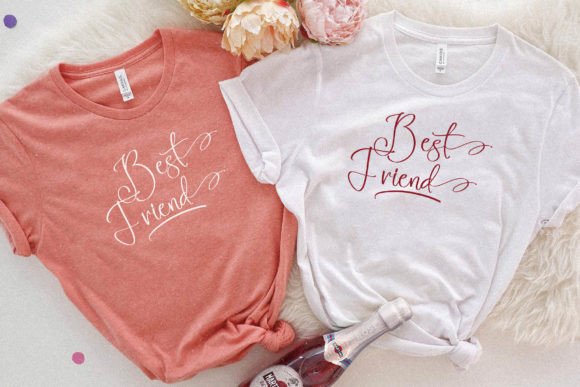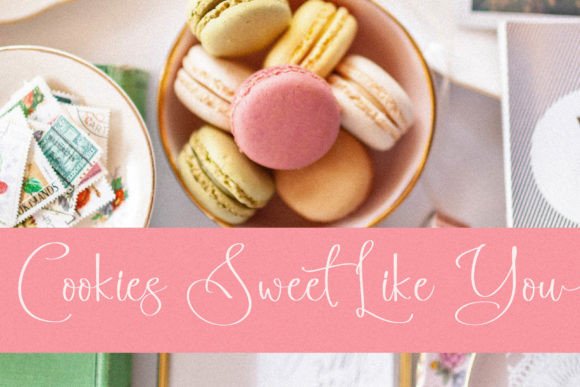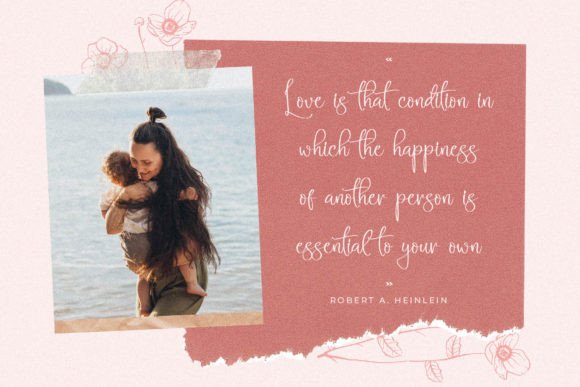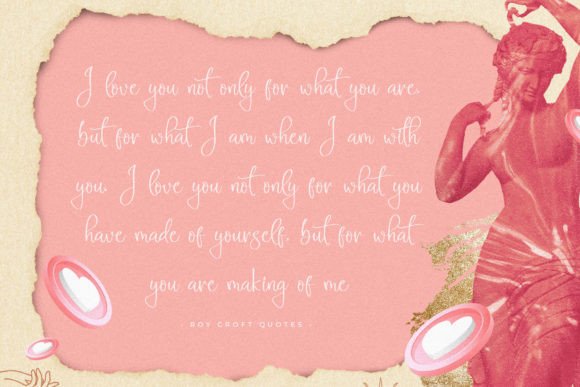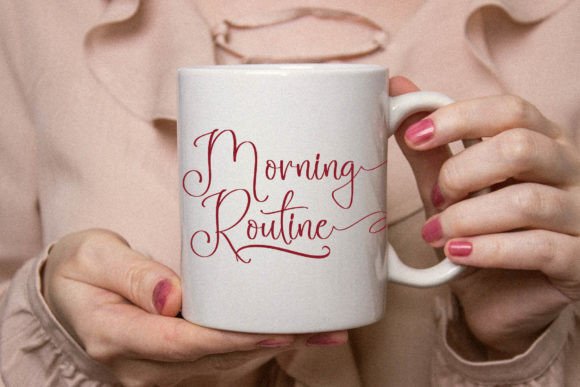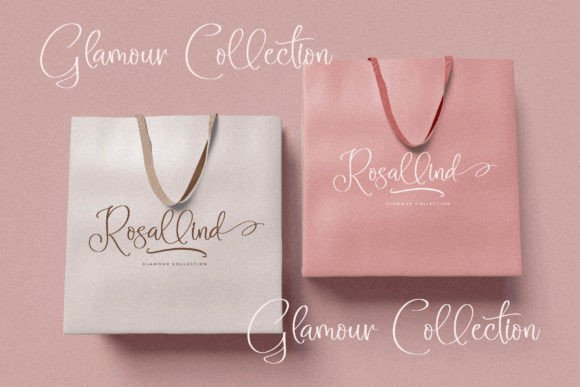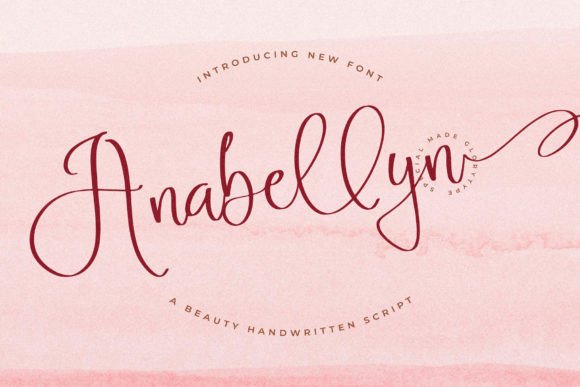
The Enchanting Anabellyn Font: A Designer’s Dream Come True
I still remember the day I stumbled upon the Anabellyn font while working on a romantic wedding invitation project. My client wanted a font that exuded elegance, whimsy, and a touch of playfulness. I had scoured the internet, tried out countless fonts, but nothing seemed quite right. That was until I laid eyes on Anabellyn – a beautiful, handwritten script font that instantly captured the essence of the project. In this article, I’ll share my experience with Anabellyn, its features, and how to make the most of this stunning font.
An Honest Review of Anabellyn Font
What I Love About Anabellyn ✨
- 💕 Romantic and Whimsical Feel: Anabellyn has a unique ability to add a touch of romance and playfulness to any project, making it perfect for wedding invitations, greeting cards, and more.
- ✅ Versatility: This font is incredibly versatile and can be used for a wide range of applications, from headlines to body text.
- 🎨 Hand-Drawn Charm: Anabellyn’s hand-drawn nature gives it a charming, organic feel that’s hard to replicate with more formal fonts.
- 👍 Ease of Use: Despite its intricate design, Anabellyn is surprisingly easy to use, even for those new to working with script fonts.
- ⚠️ Legibility at Small Sizes: Like many script fonts, Anabellyn can become a bit tricky to read at very small sizes. It’s best used at larger sizes (around 18pt and above) for optimal legibility.
- 🤔 Kerning and Pairing: Some users might find that Anabellyn requires a bit of manual kerning to achieve optimal spacing, especially when pairing it with other fonts.
The Story Behind Anabellyn Font
While the actual origins of Anabellyn are unclear, it’s easy to imagine that it was created by a designer with a passion for handwriting and elegance. Perhaps they drew inspiration from beautiful wedding invitations, vintage letters, or the flowing lines of calligraphy. Whatever the inspiration, Anabellyn has undoubtedly captured the hearts of designers and crafters around the world.
| Font Name | Anabellyn Font |
| Author | Glorytype Studio |
Q: Is Anabellyn suitable for body text?
A: While Anabellyn is stunning as a display font, it’s not ideal for long blocks of body text. Its intricate design and script nature can make it harder to read in large quantities.
Q: Does Anabellyn support OpenType features?
A: Yes, Anabellyn supports OpenType features, including glyphs and stylistic alternates. This allows for greater flexibility and customization in your designs.